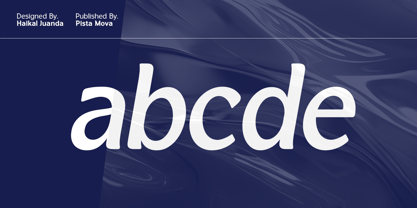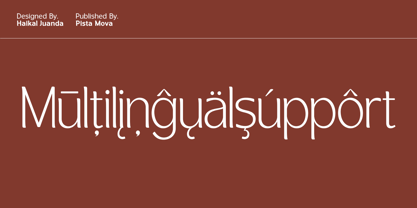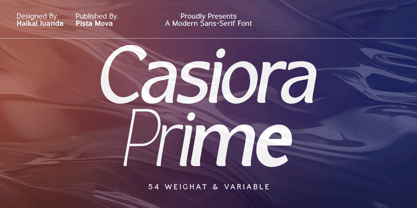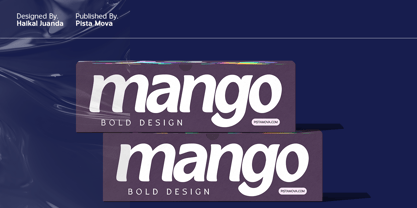
Casiora Prime
by Pista Mova
The Casiora Prime Font Family was designed by Haikal Juanda and published by Pista Mova. Casiora Prime contains 55 styles and family package options. More about this family
Introducing Casiora Prime Font Family Experience timeless elegance with Casiora Prime, a carefully crafted sans typeface that blends modern charm with contemporary style. Its high-contrast strokes and graceful curves create a visual symphony that captivates the eye and enhances any design. Whether you’re creating a sophisticated editorial layout, a striking brand identity, or an engaging website, the versatility and refined beauty of Casiora Prime will make your work stand out. Immerse yourself in the world of Casiora Prime Sans, where every character has been thoughtfully designed to exude strength and refinement. From its carefully sculpted sans forms to its perfectly balanced proportions, this typeface is a testament to the timeless power of modern typography. Its true italics, with their unique personality, add a sense of dynamic movement and visual interest—allowing you to create designs that are both captivating and highly readable. Key Features Effortless Elegance Casiora Prime Sans’ clean lines and balanced proportions exude modern charm, making it ideal for a wide range of applications. OpenType Features Take full control of your typography with advanced OpenType features, including alternates and ligatures. Multilingual Support With support for over 90 languages, Casiora Prime Sans ensures your message reaches a truly global audience. True Italics Casiora Prime Sans Italics are not simply slanted versions of the regular style. They are carefully designed to complement upright characters and create a harmonious visual flow. Perfect for Editorial Design Magazines, newspapers, and books — Casiora Prime Sans offers excellent legibility and elegance for long-form text. Branding & Logos Create a sophisticated and memorable brand identity with the timeless appeal of Casiora Prime Sans. Web Design Casiora Prime Sans’ clean structure and high contrast ensure optimal readability across all screen sizes. Packaging & Print Enhance product packaging and printed materials with a refined, luxurious touch. Invitations & Stationery Make a lasting impression with the elegant presence of Casiora Prime Sans on invitations, greeting cards, and stationery. Files You Will Get from Casiora Prime  - Casiora Prime Variable  - Casiora Prime Regular Family  - Casiora Prime Slanted Family  - Casiora Prime Condensed Slanted Family  - Casiora Prime Expanded Slanted Family Feel the difference with Casiora Prime—a font family that combines elegance with versatility. Download it today and unlock a world of typographic possibilities. Happy creating!
Designers: Haikal Juanda
Foundry: Pista Mova